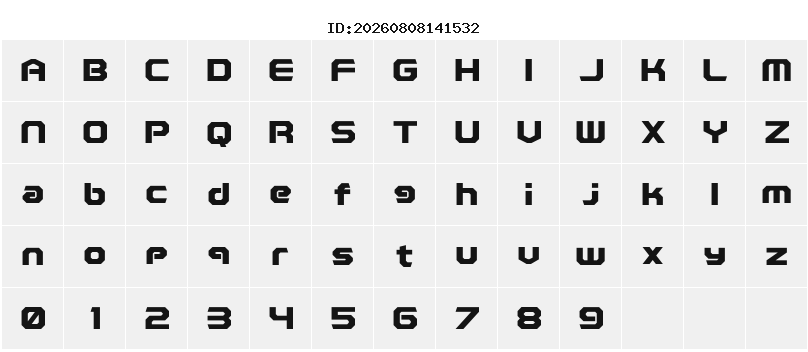
• Font Name: Polentical Neon
• Full Font Name: Polentical Neon Bold
• Designer: Jayvee D. Enaguas (Grand Chaos)
About Polentical Neon.ttf
Polentical Neon.ttf is a modern, elegant sans-serif font designed for ultimate readability and visual harmony. Perfect for branding, headlines, web design, and print materials.